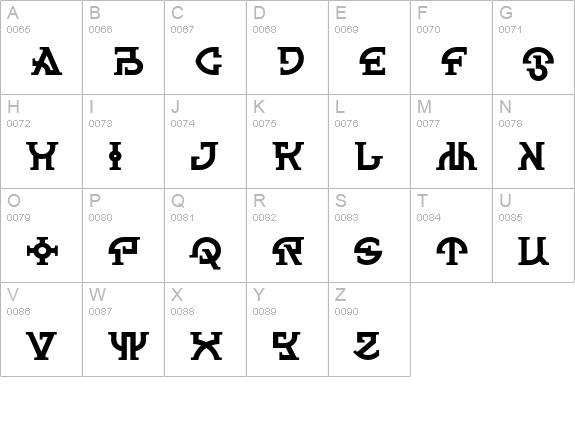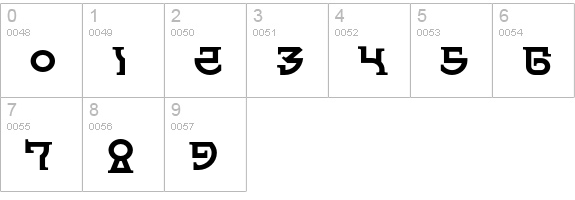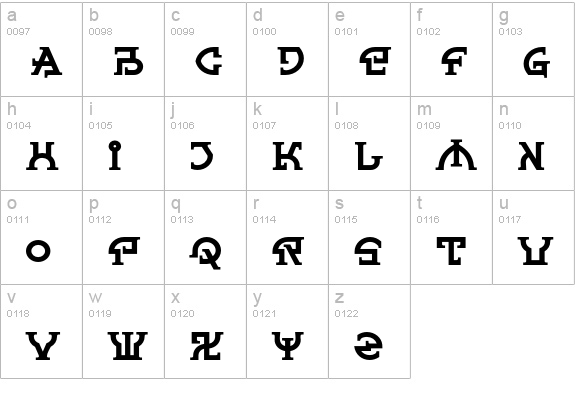
Spanner-DGauge Font Details
Introducing Spanner-DGauge, a captivating and innovative font that seamlessly blends modern aesthetics with a touch of retro charm. This font boasts a unique design, inspired by vintage signages and industrial typography, making it a perfect choice for projects seeking to evoke a sense of nostalgia and creativity. Spanner-DGauge features a harmonious balance between bold, sturdy letterforms and delicate, intricate details, resulting in a truly mesmerizing visual experience. Each character is meticulously crafted, showcasing a distinctive fusion of sharp edges and smooth curves that effortlessly captures attention and adds personality to any design. With its versatility, this font encompasses a wide range of applications. Whether you're designing a logo, creating eye-catching headlines, or crafting impactful display materials, Spanner-DGauge effortlessly adapts to various design styles and contexts. Its ability to convey both strength and elegance makes it an ideal choice for industries such as fashion, music, advertising, and beyond. What sets Spanner-DGauge apart is not just its remarkable design, but also its accessibility. We are delighted to announce that this exceptional font is freely available to download at FontsMarket.com. Now, designers and creatives from all walks of life can access this captivating typeface without any barriers, allowing them to bring their visions to life with ease. Embrace the timeless appeal of Spanner-DGauge and elevate your designs with its captivating presence. Download this remarkable font today and experience the perfect blend of vintage charm and contemporary flair, all at your fingertips.